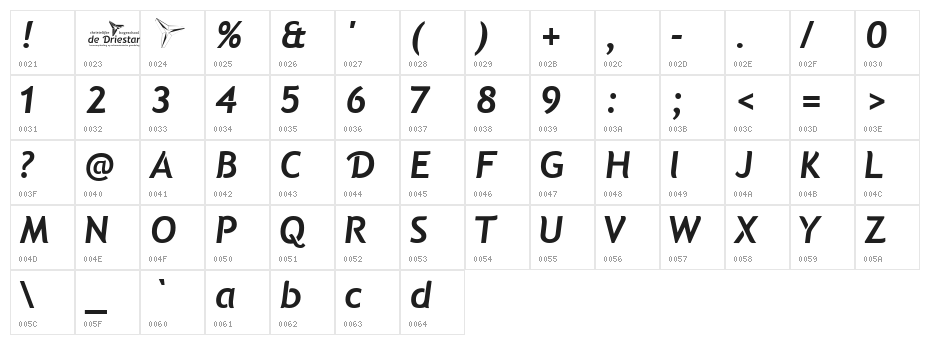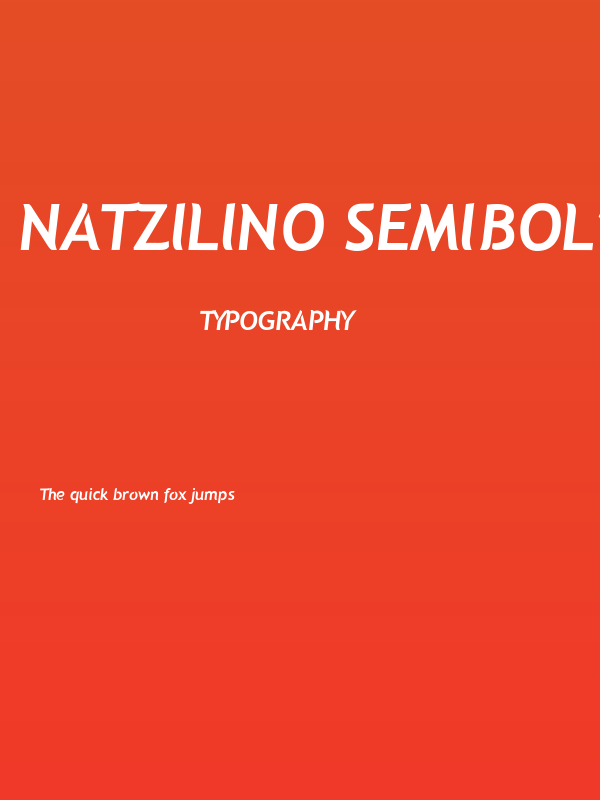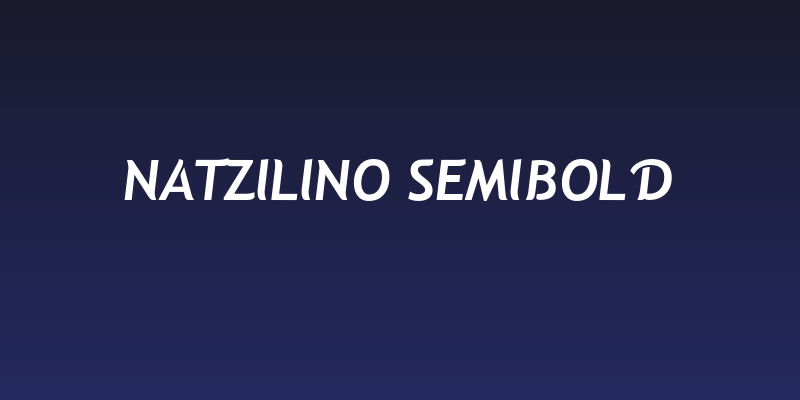
Natzilino SemiBold Font
Natzilino SemiBold Description
This font features a dynamic and modern style with a slight italic slant, giving it a sense of movement and energy. The characters are well-defined with smooth curves and sharp edges, creating a harmonious balance between softness and precision. The uppercase letters are bold and commanding, while the lowercase letters maintain a consistent flow. The numerals are clear and easily distinguishable, making them suitable for various applications. Special characters are included, adding versatility to the font's usage. Overall, this font exudes a contemporary and professional vibe, making it ideal for projects that require a touch of elegance and modernity.
| Proposed Projects | Suitable for branding, advertising, editorial design, and digital media projects. |